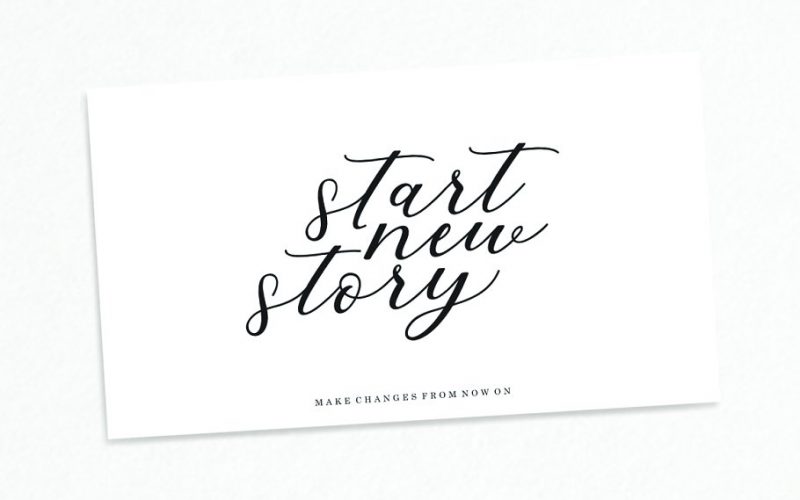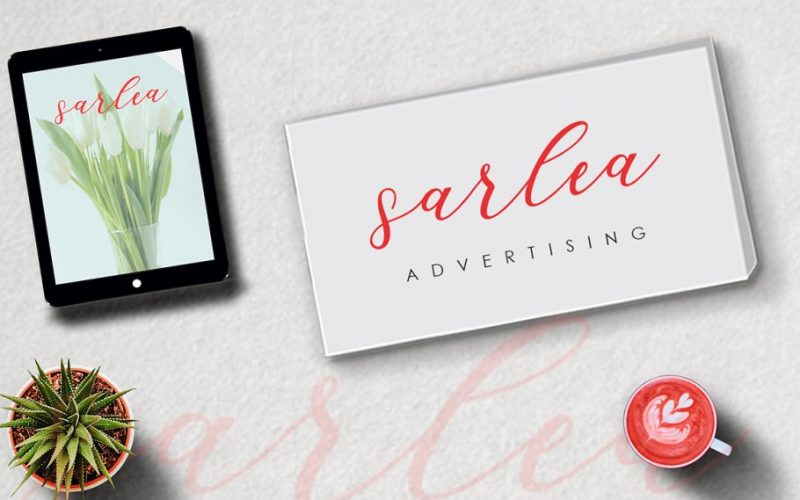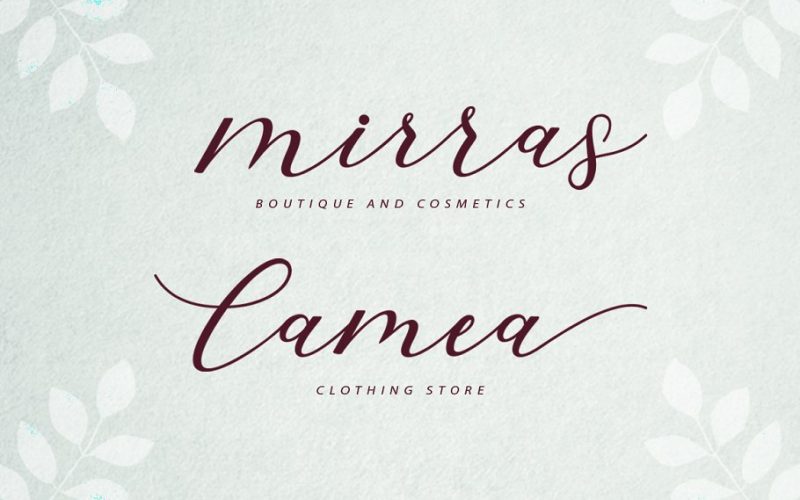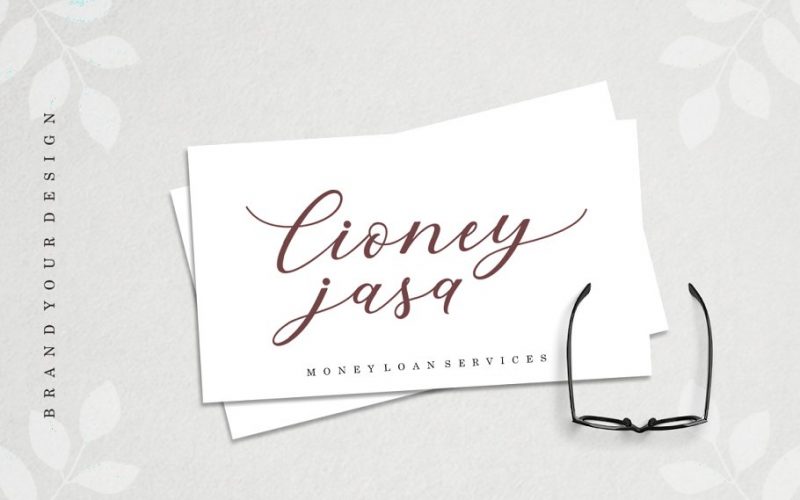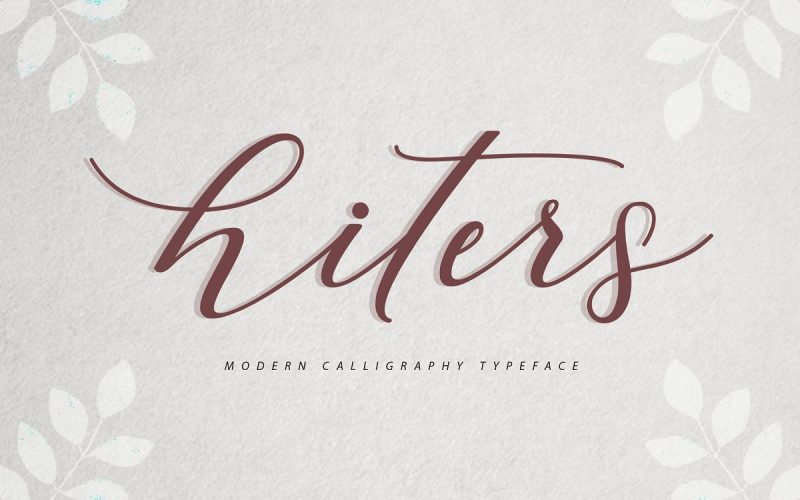
Hiters Calligraphy Font
Introducing Hiters Font – an modern calligraphy typeface. Its designed and shared by Musafir LAB. Hiters Script – every letter has been carefully crafted to make your text look beautiful with an elongated connection model. With a modern script style this font will be perfect for various projects, for example: weddings, invitations, greeting cards, posters, business cards, quotes, blog headers, branding, logos, fashion, clothing, letters, stationery